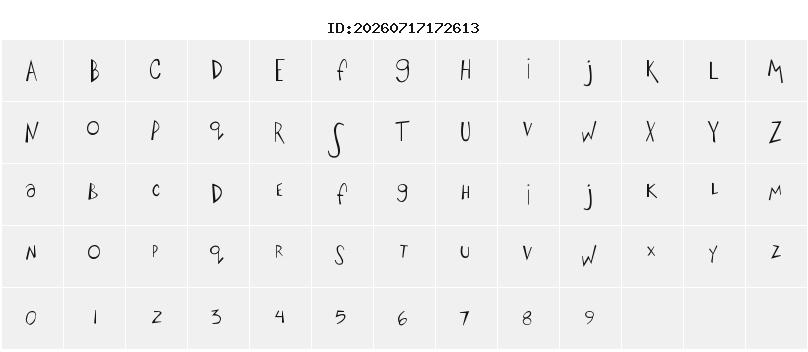
Big Fish Ensemble Preview
• Font Name: Big Fish Ensemble
• Font ID: Big Fish Ensemble
• Full Font Name: Big Fish Ensemble
• Version: Version 1.0 - Robotic Attack Fonts
About Big Fish Ensemble.ttf
Big Fish Ensemble.ttf is a modern, elegant sans-serif font designed for ultimate readability and visual harmony. Perfect for branding, headlines, web design, and print materials.